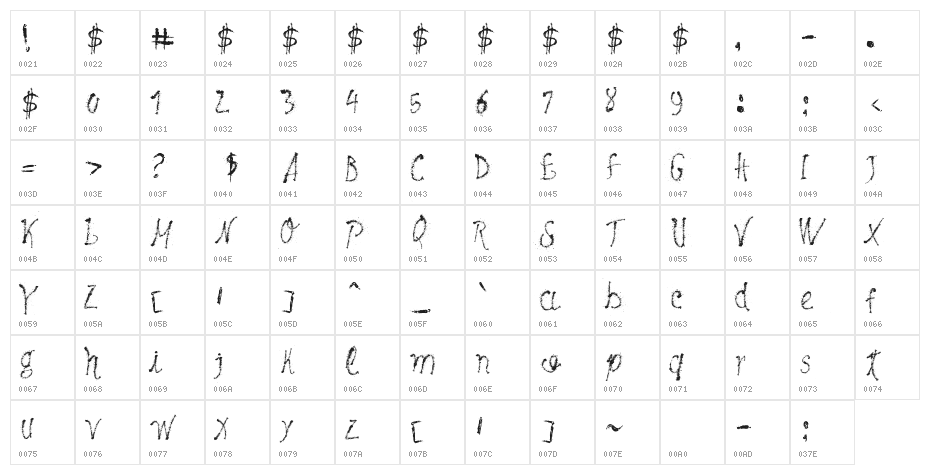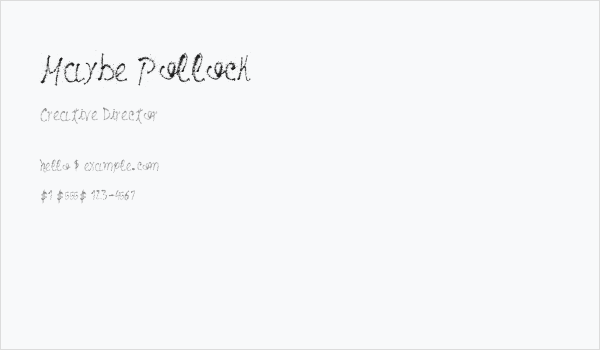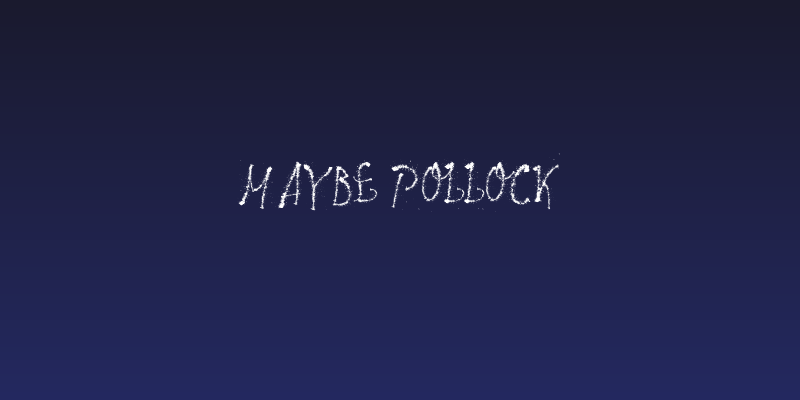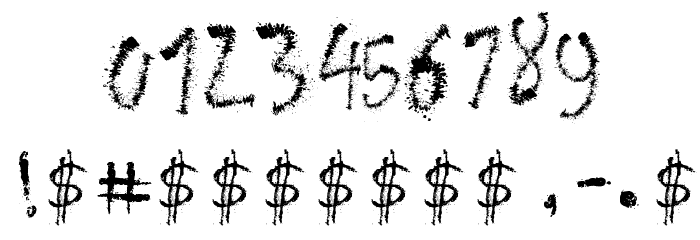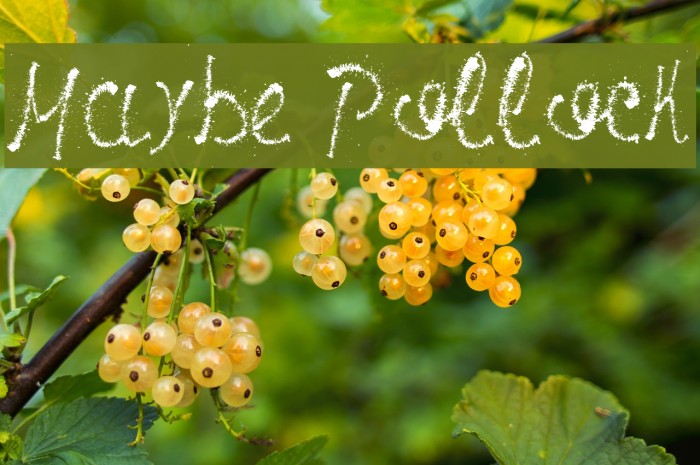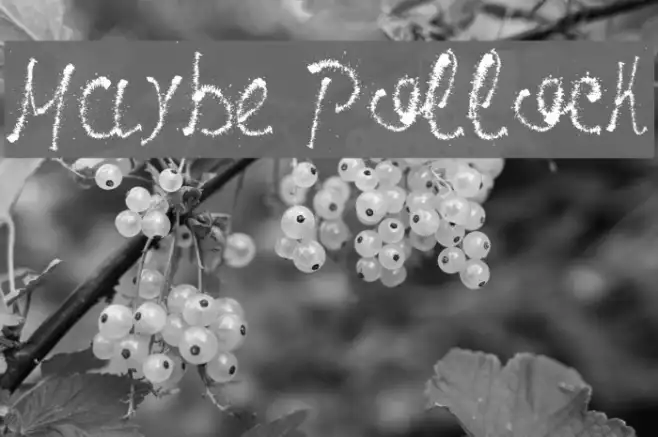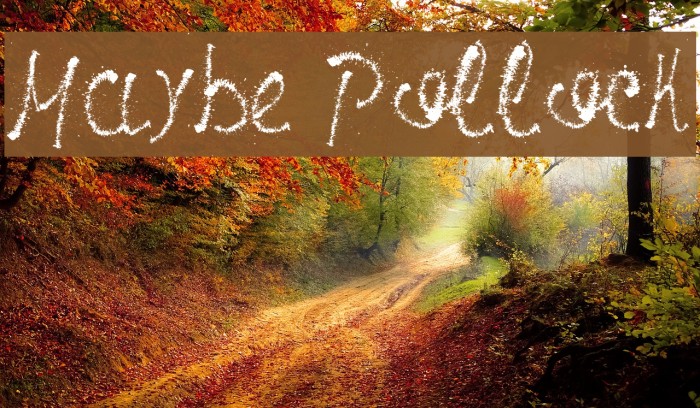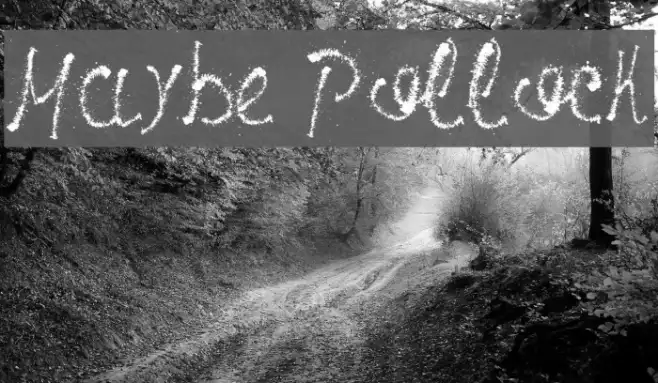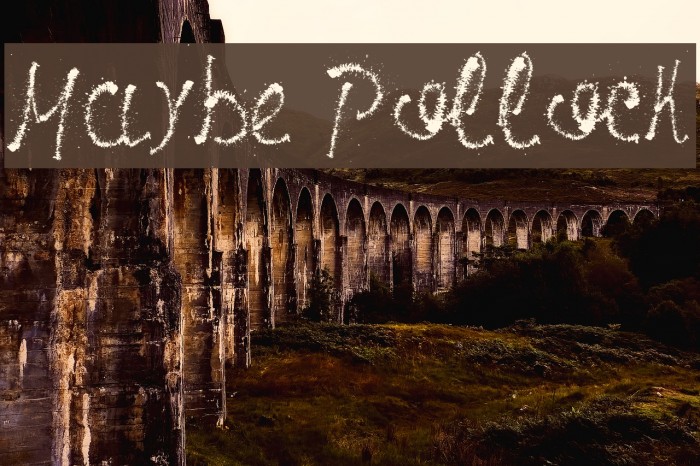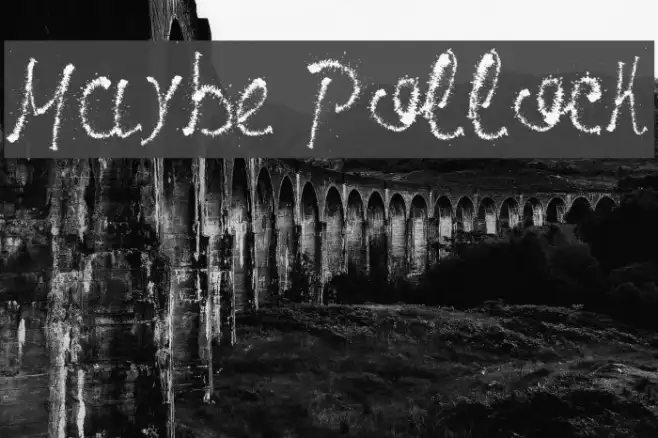
Maybe Pollock Font
Maybe Pollock Description
This font exhibits a unique, artistic style reminiscent of abstract expressionism, characterized by its textured, splattered appearance. The letters have an organic, freeform quality, with irregular edges and a dynamic flow that suggests movement and spontaneity. The uppercase and lowercase letters maintain a consistent style, while the numbers and special characters integrate seamlessly, enhancing the font's cohesive look. This font's distinctive aesthetic makes it stand out, offering a creative and unconventional approach to typography.
| Overall Style | Artistic, Abstract, Creative |
| Use Case | Logos, Posters, Artistic Projects |
| Proposed Projects | Ideal for art-related projects, creative branding, posters, and any design requiring a bold, artistic statement. |